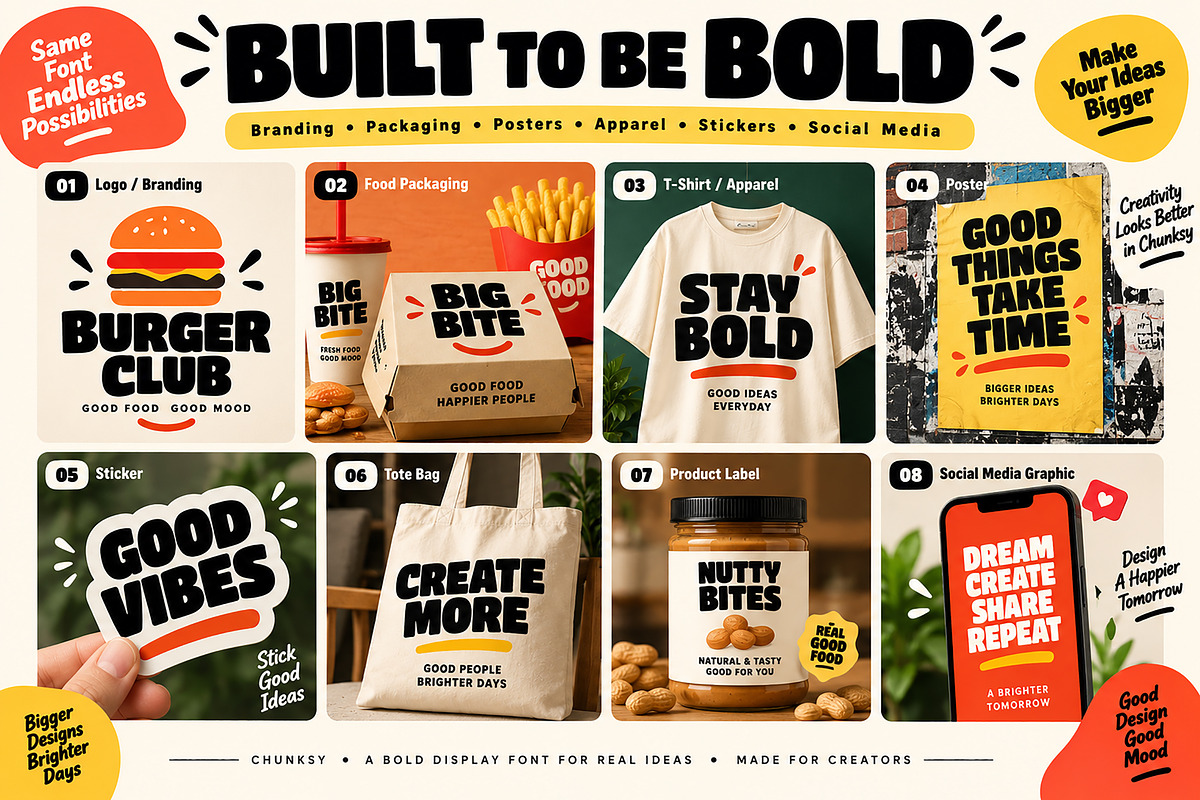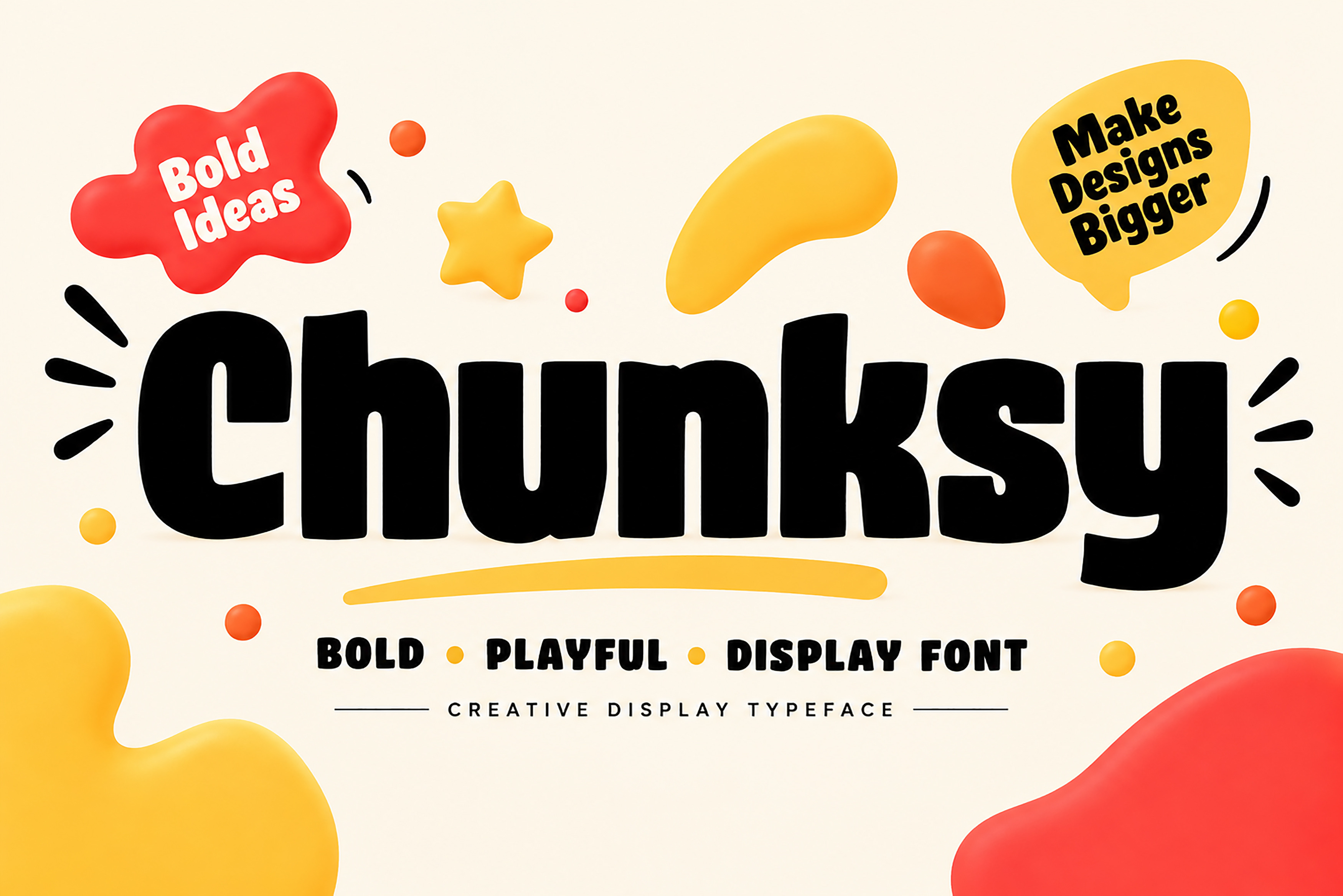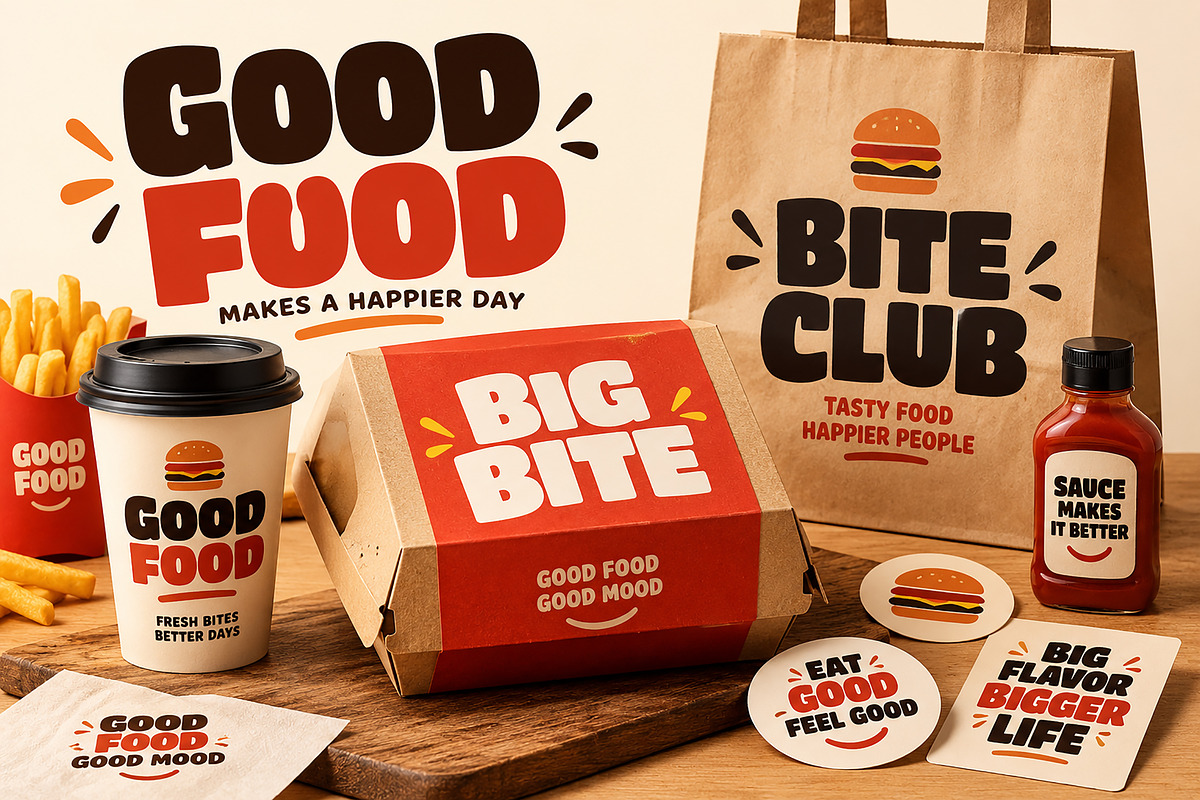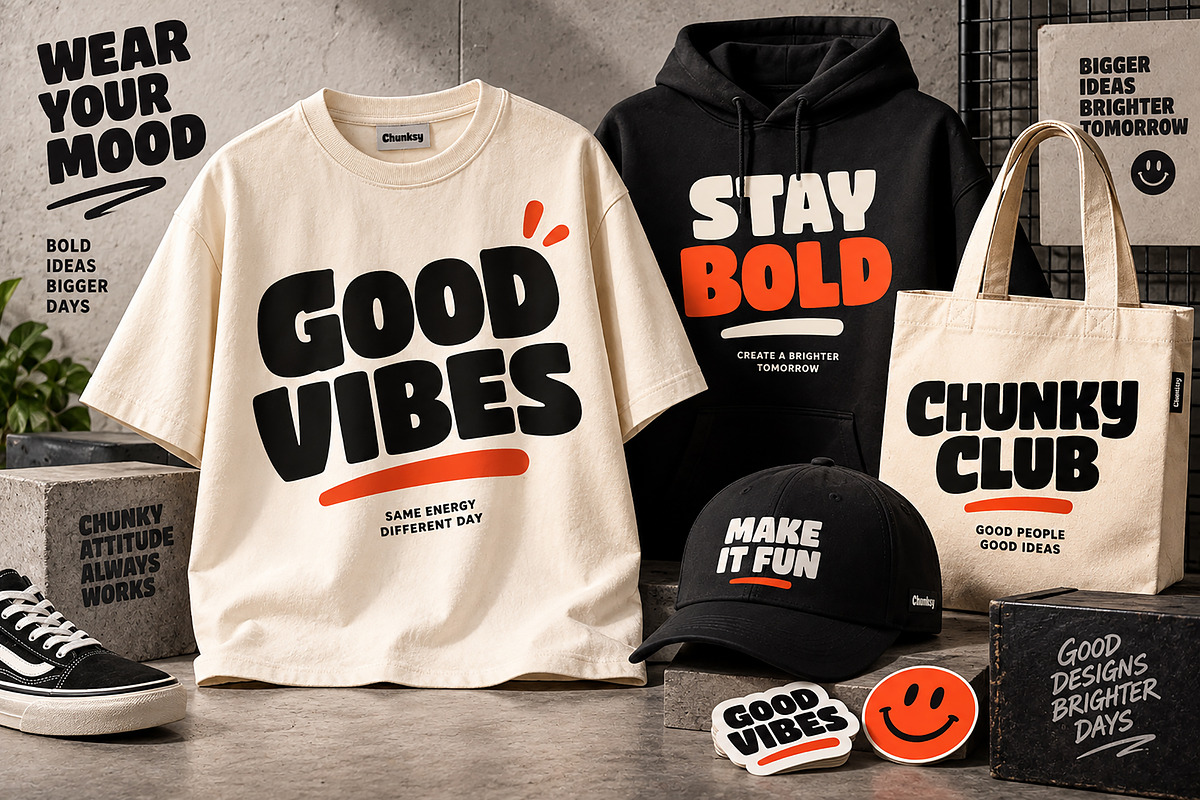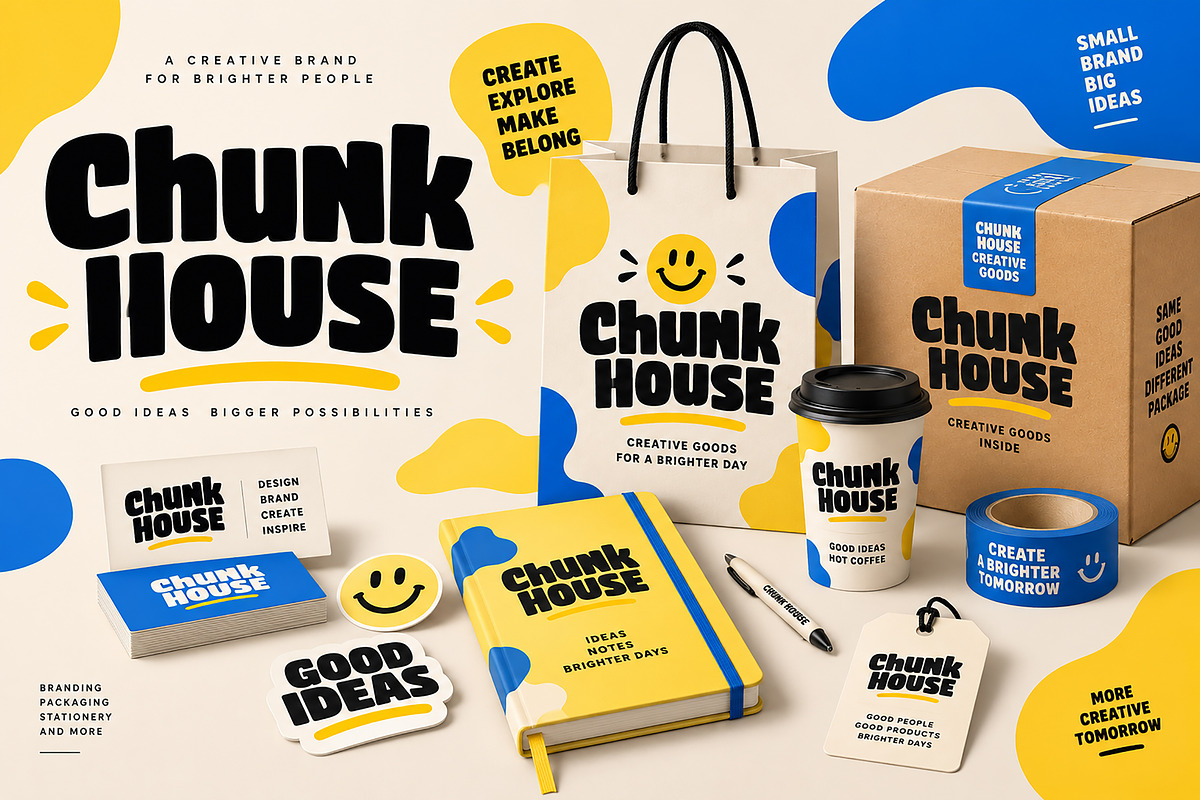
Chunksy: Display Font
Chunky is a bold, playful, and eye-catching display font designed to make your typography stand out. With its heavy letterforms, soft rounded shapes, and energetic personality, Chunky brings a fun and modern feel to any creative project.
Perfect for designers looking to create attention-grabbing headlines, logos, posters, packaging, social media graphics, branding, apparel designs, stickers, labels, invitations, and more.
Its chunky and friendly appearance works especially well for kids’ designs, playful branding, advertising, posters, merchandise, badges, quotes, thumbnails, and creative display typography.
✦ Features
Bold & playful display style
Heavy, rounded letterforms
Strong visual impact at large sizes
Fun and friendly personality
Great for headlines and short phrases
Suitable for print and digital projects
Perfect for branding, packaging, apparel & posters
✦ Perfect For
Logo & Branding
Posters & Flyers
T-Shirt & Apparel Designs
Packaging & Product Labels
Stickers & Badges
Children's Designs
Advertising & Headlines
Greeting Cards
Quotes & Typography
YouTube Thumbnails
Creative Display Projects
Bring your designs to life with Chunky — a bold typeface made to grab attention and add a playful personality to your creative work.